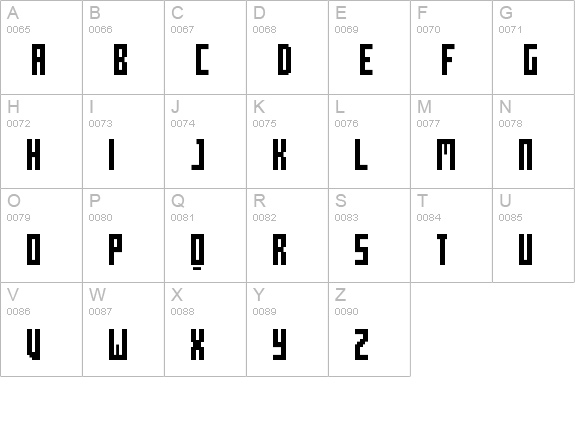
Mecha Condensed Bold Font Details
Mecha Condensed Bold is a strong, high-contrast, condensed-width variant in the Mecha typeface family \xE2\x80\x94 well suited to headlines, attention-grabbing titles, and strong calls-to-action.
Mecha Condensed Bold font is a bold and dynamic typeface that exudes power and strength. Its sleek and modern design makes it perfect for various design projects that require a strong and impactful typography. With its condensed form, Mecha Condensed Bold font is able to fit more text in a limited space without compromising legibility. This makes it an excellent choice for headlines, titles, logos, and other display purposes. The bold weight of Mecha Condensed Bold font adds an extra level of intensity and emphasis to any design. It commands attention and makes a bold statement, making it ideal for projects that require a strong and impactful visual presence. The versatility of Mecha Condensed Bold font allows it to be used in a wide range of design applications. Whether it's for print or digital media, this font can effortlessly enhance any design with its bold and striking appearance. What makes Mecha Condensed Bold font even more appealing is that it is freely available to download at FontsMarket.com. This means that you can easily access and use this font in your design projects without any cost or hassle. Whether you're a professional designer or a beginner, you can enjoy the benefits of this powerful font without breaking the bank. So, if you're looking for a bold and impactful font that is versatile and free to use, look no further than Mecha Condensed Bold font. Download it today from FontsMarket.com and take your designs to the next level with its bold and powerful presence.